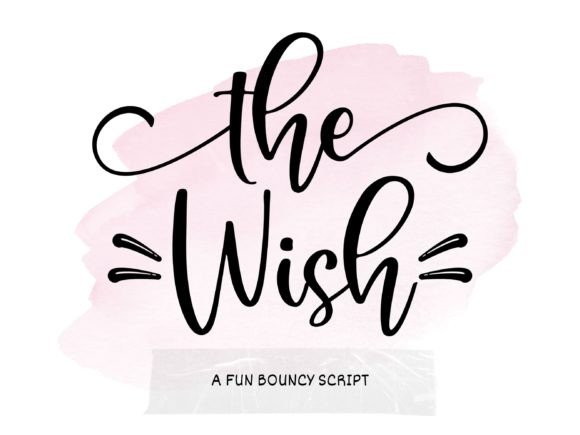
Introducing The Wish Font, the ultimate choice for creating breathtaking wedding cards and more. This script font, designed by Sugartype, is a masterpiece that will instantly captivate your heart. With its playful yet elegant curves and enchanting flourishes, The Wish adds a touch of magic to any creative project.
Are you searching for a font that exudes personality and charm? Look no further. The Wish Font is your answer. Its whimsical design is perfect for adding a unique and unforgettable element to your crafts, apparel, invitations, and merchandise. Let your imagination run wild and watch as this font brings your design dreams to life.
Unlock a world of possibilities with The Wish Font. Thanks to its PUA encoding, accessing its amazing glyphs and ligatures is a breeze. No more struggling to find the perfect embellishments or decorative elements. This font has it all, making your creative journey seamless and enjoyable.
Imagine the joy on your clients' faces when they receive a wedding card featuring The Wish Font. Its mesmerizing strokes and graceful curves will leave them awe-inspired. It is the font that sets you apart from the crowd, making your designs truly unforgettable.
Infuse emotion into your creations with The Wish Font. Its elegant calligraphy style evokes feelings of love, joy, and celebration. Whether you're designing for a wedding, anniversary, or any special occasion, this font will create an emotional connection with your audience.
Don't settle for ordinary when you can have extraordinary. Choose The Wish Font and let your designs shine like never before. Elevate your projects with this eye-catching font that guarantees to leave a lasting impression.